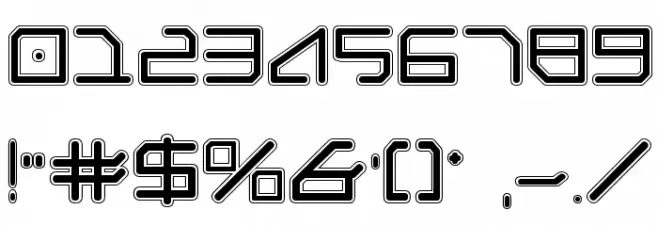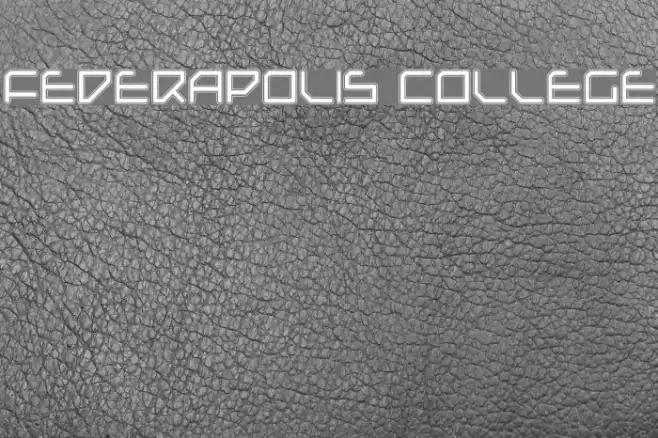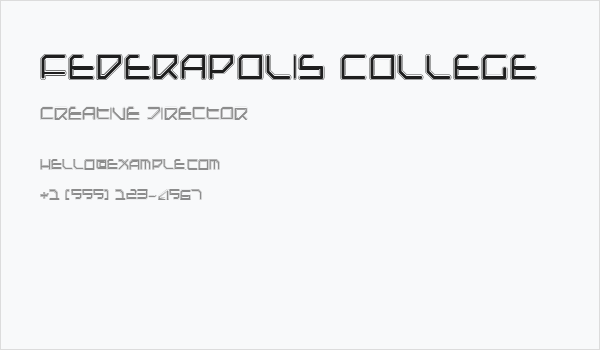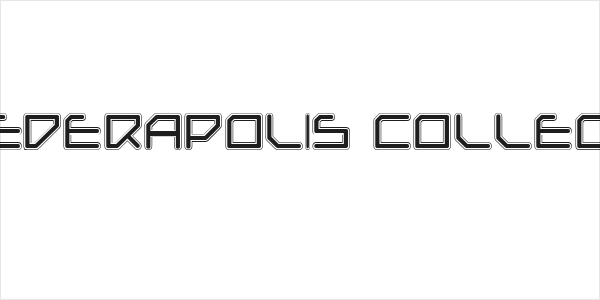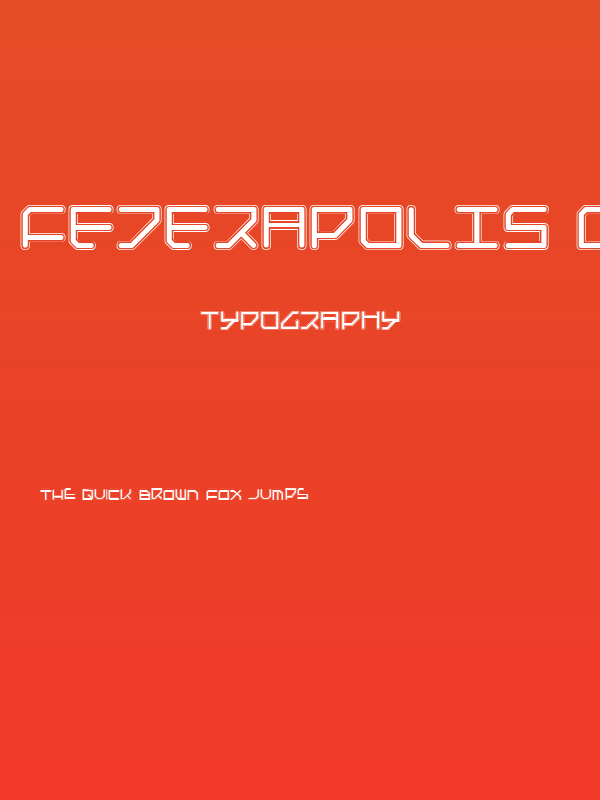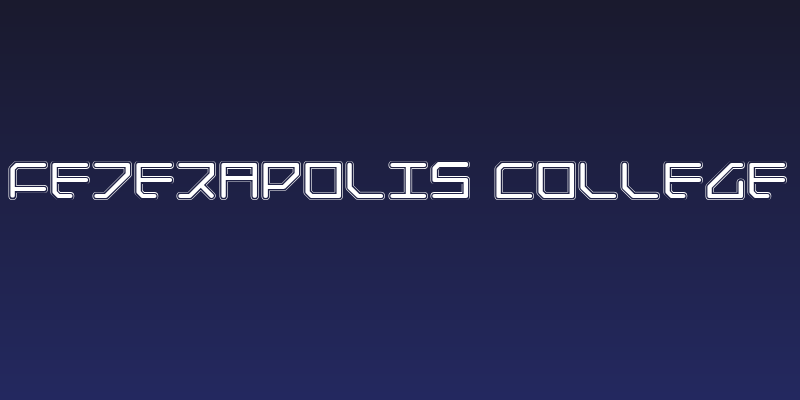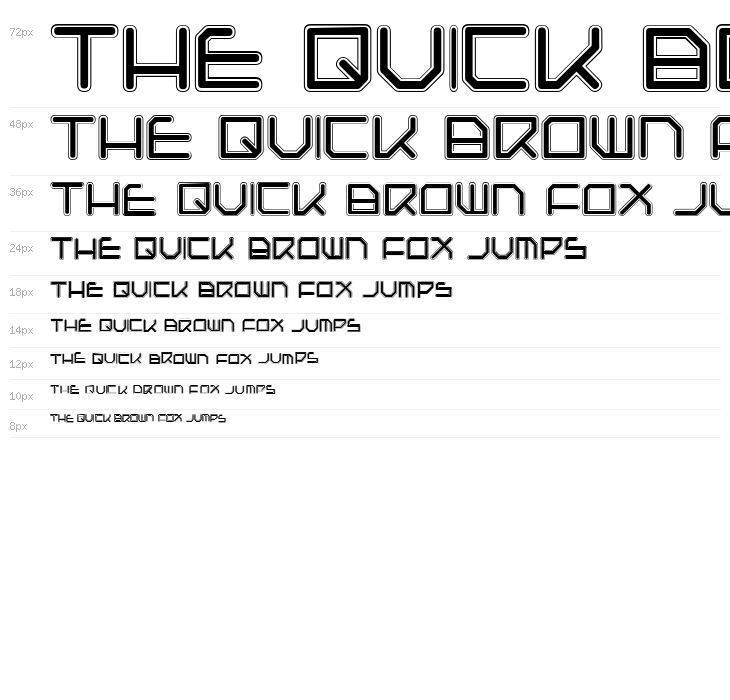
Federapolis College Font
Federapolis College Description
This font features a futuristic and geometric design with a distinct outline style. Each character is crafted with precision, showcasing a blend of angular and rounded elements that create a unique visual appeal. The uppercase and lowercase letters maintain a consistent height, contributing to a uniform appearance. The numerals and special characters follow the same design principles, ensuring a cohesive look across all glyphs. The font's bold outline enhances its visibility, making it suitable for attention-grabbing designs. Its modern aesthetic is ideal for projects that require a contemporary and tech-inspired touch.
| Proposed Projects | Ideal for tech-themed branding, video game titles, sci-fi posters, and digital interfaces. |